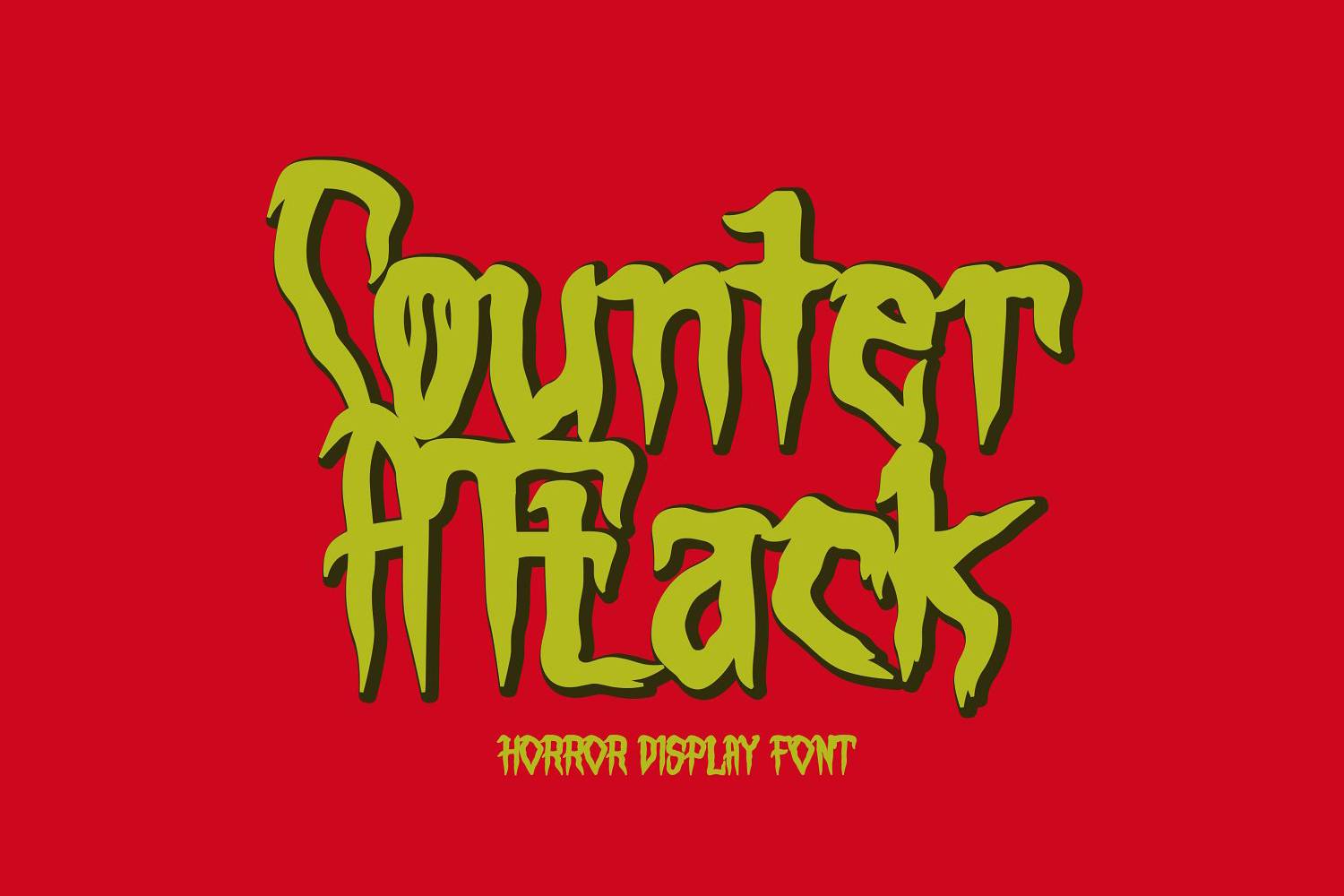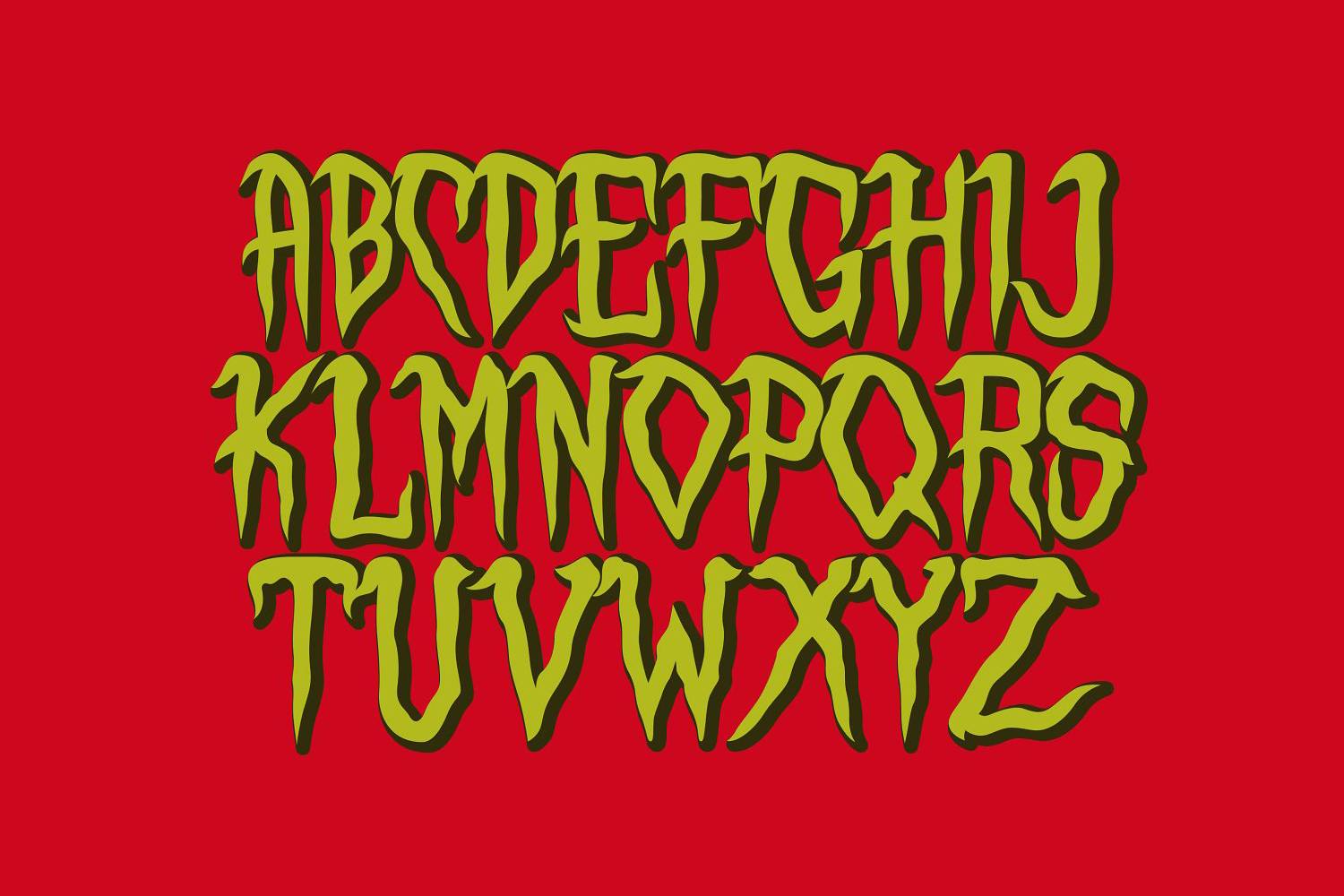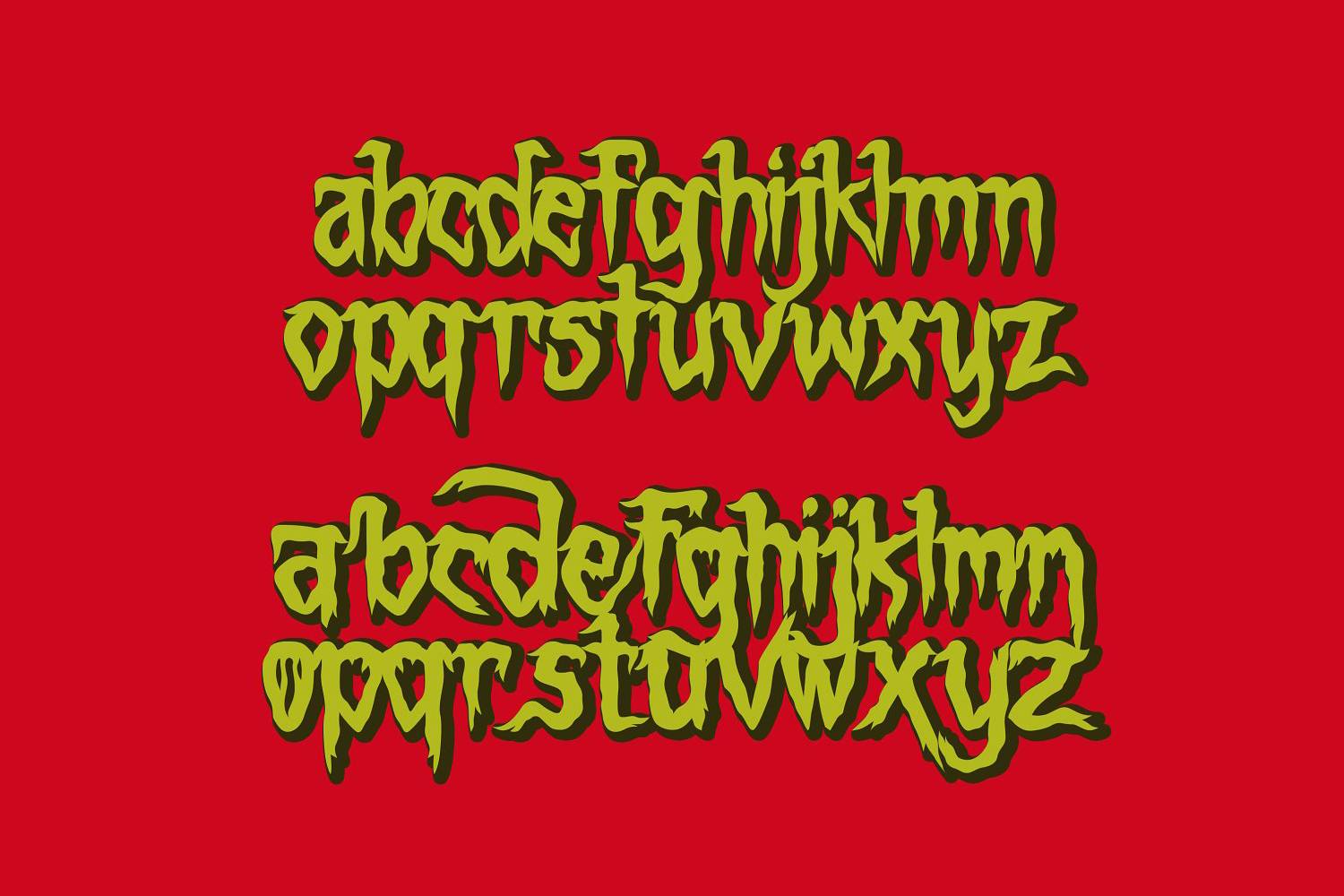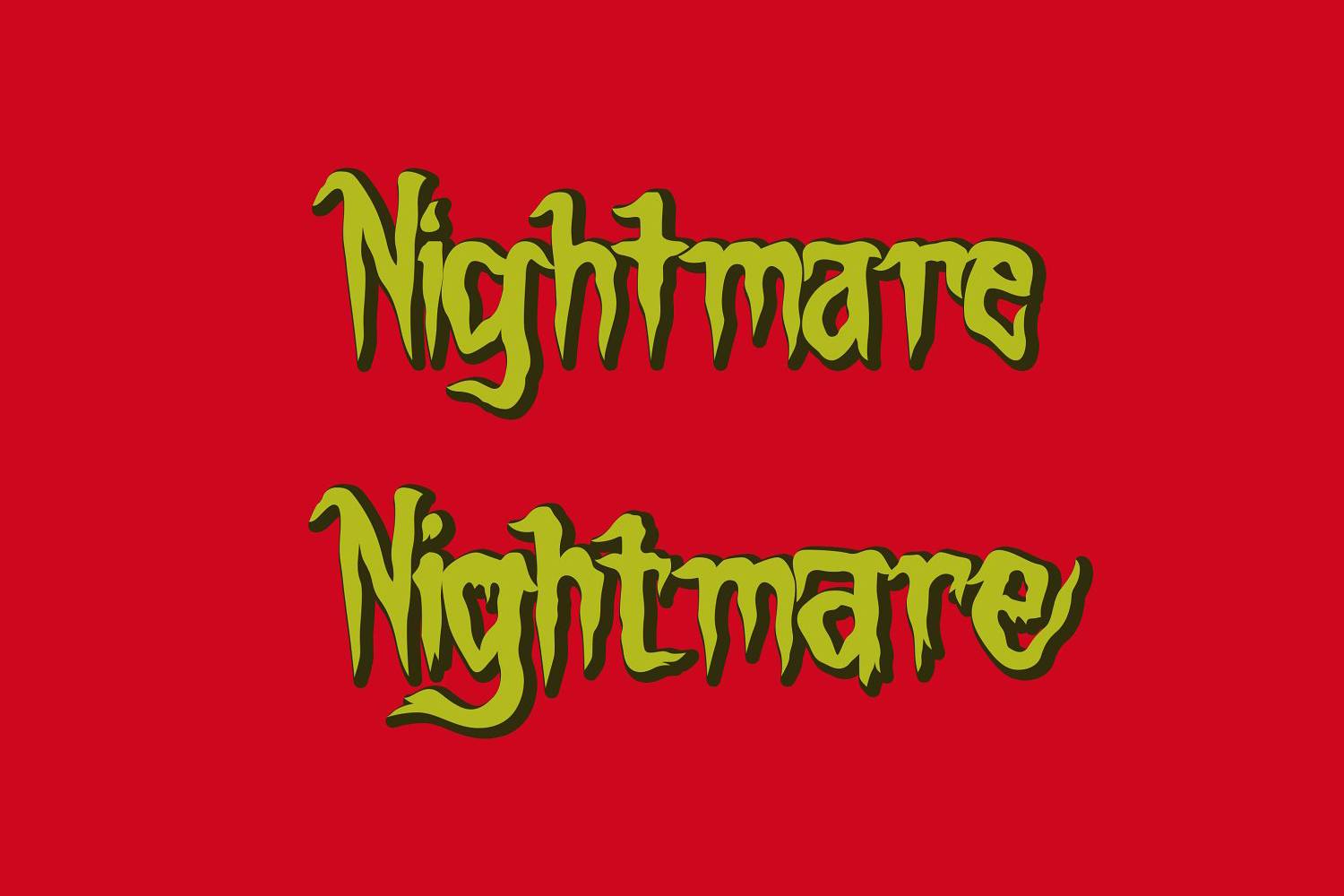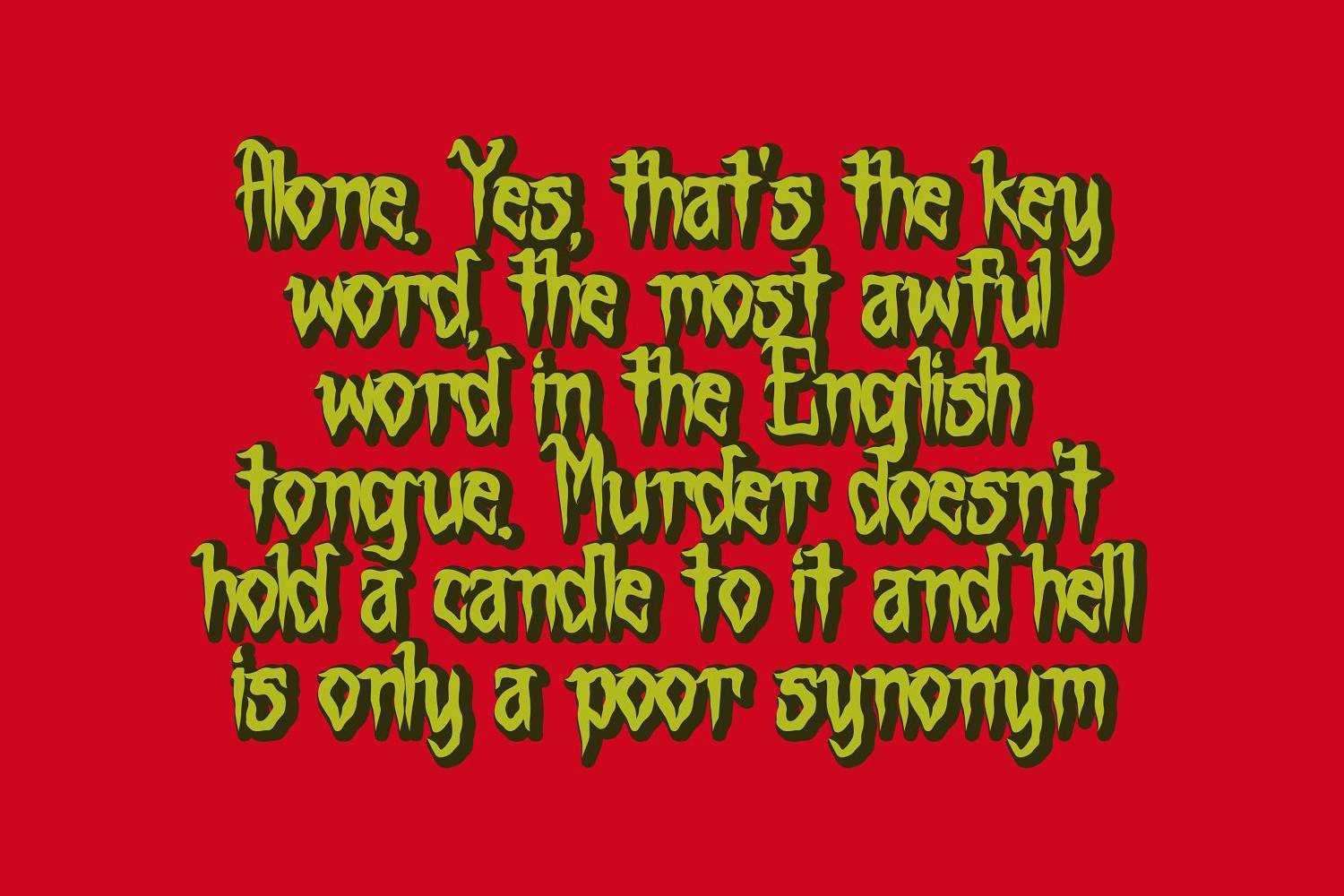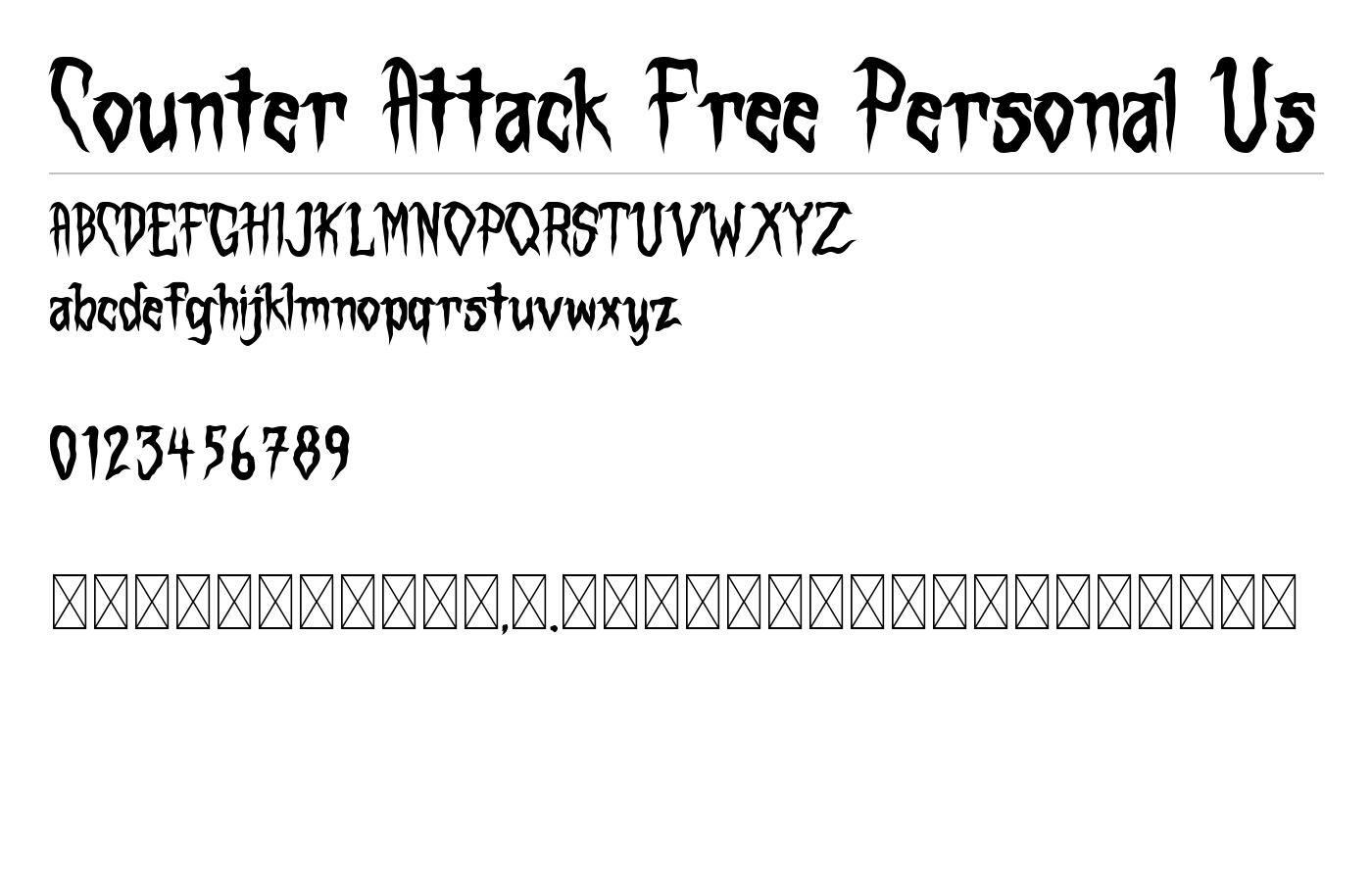
Counter Attack is a bold, decorative display font with jagged, irregular strokes that give it a sharp, edgy, and somewhat eerie character. Its tall, condensed letterforms feature a high contrast between thick and thin lines, evoking a spooky or horror-inspired mood, making it ideal for eye-catching headlines, posters, and themed branding where a dramatic, intense atmosphere is desired.
Counter Attack Font
About Counter Attack Font
| Font family | Counter Attack Font |
| Designer | arendxstudio |